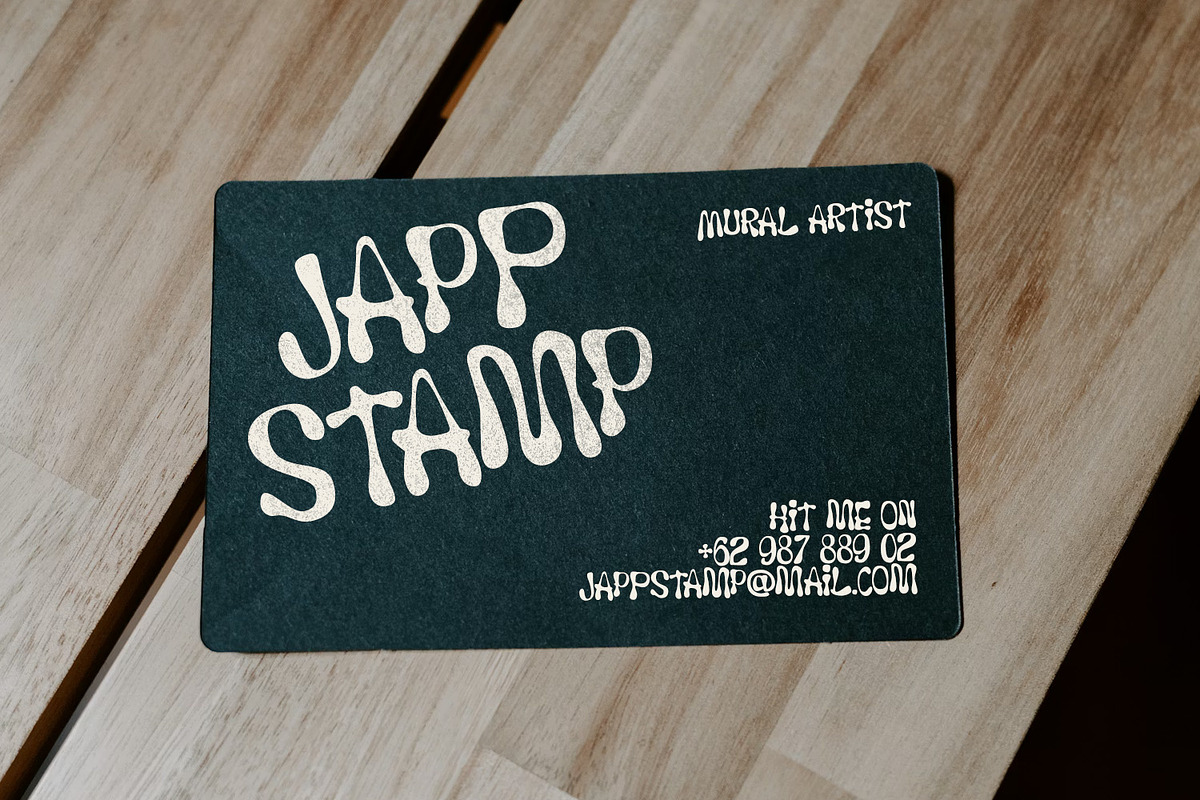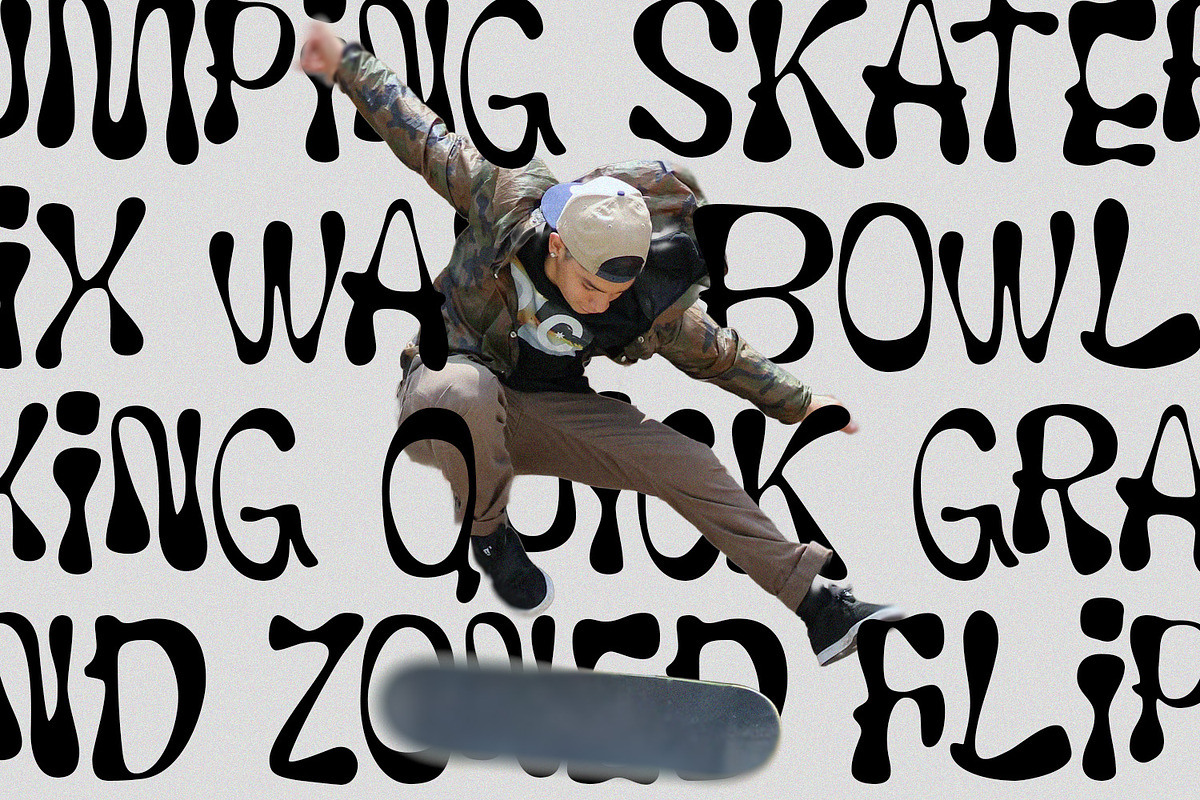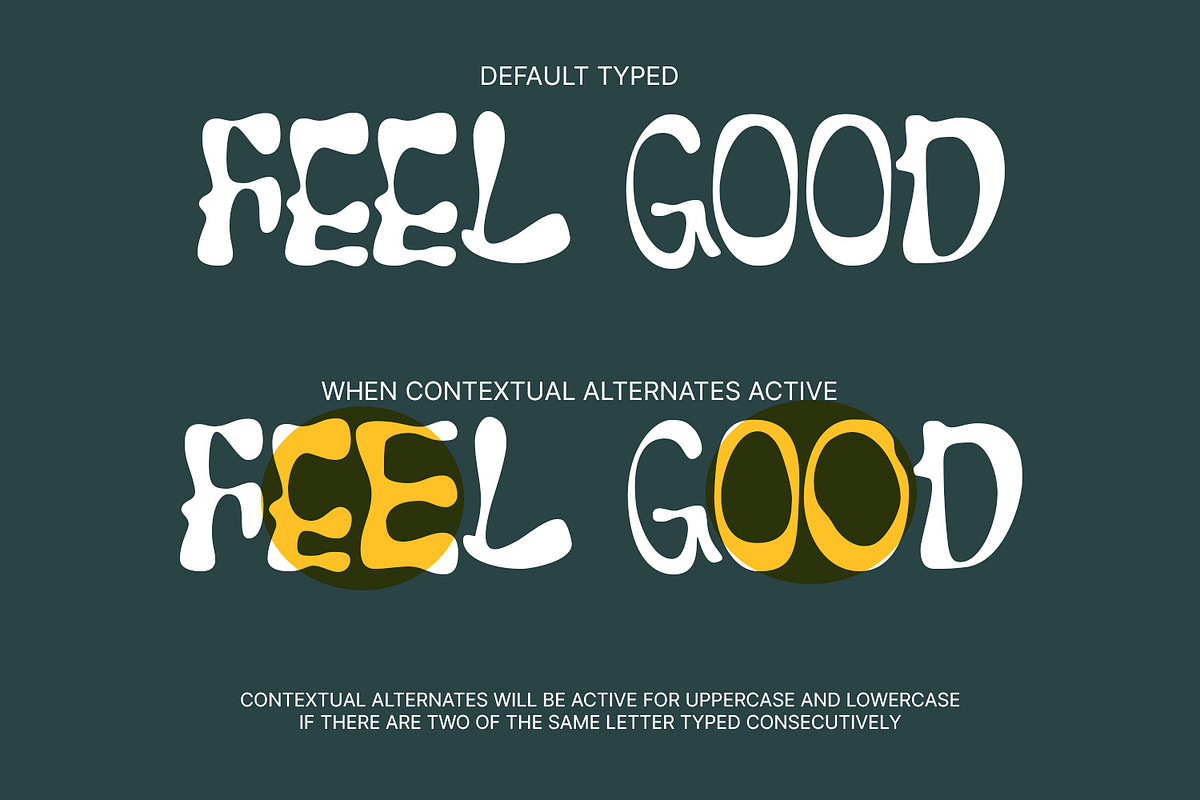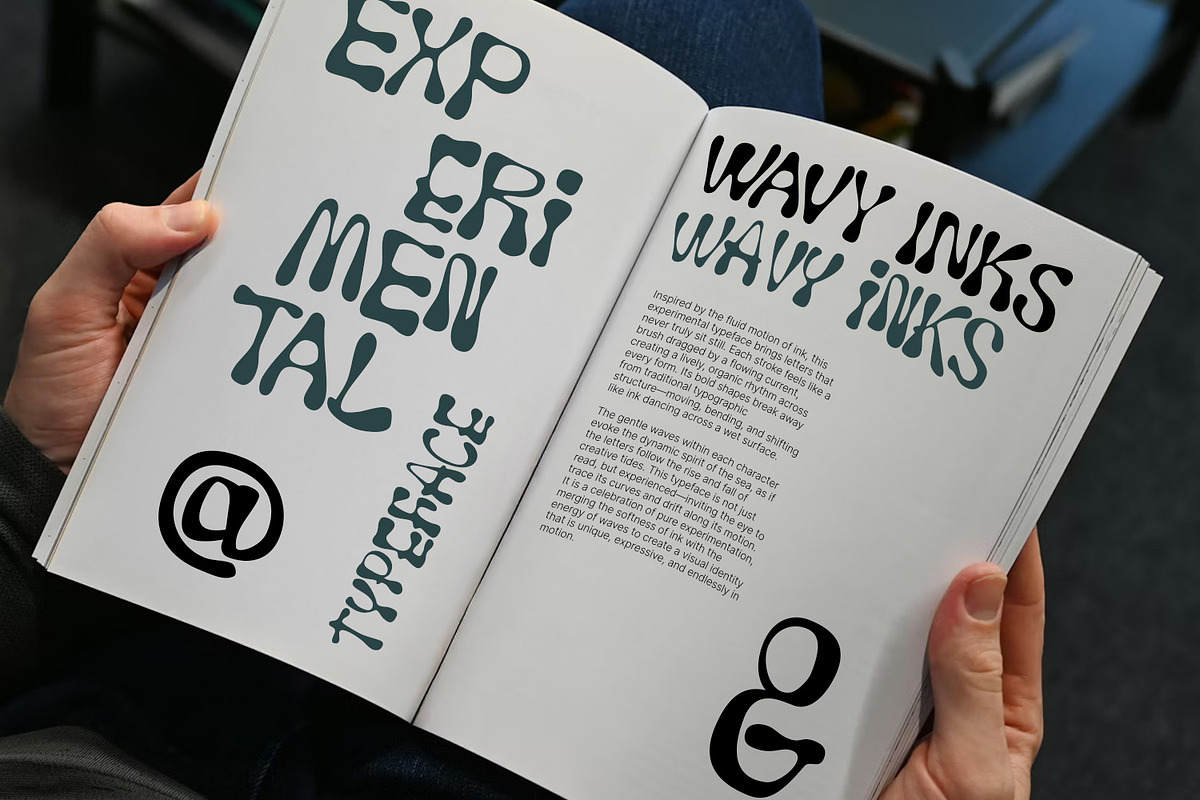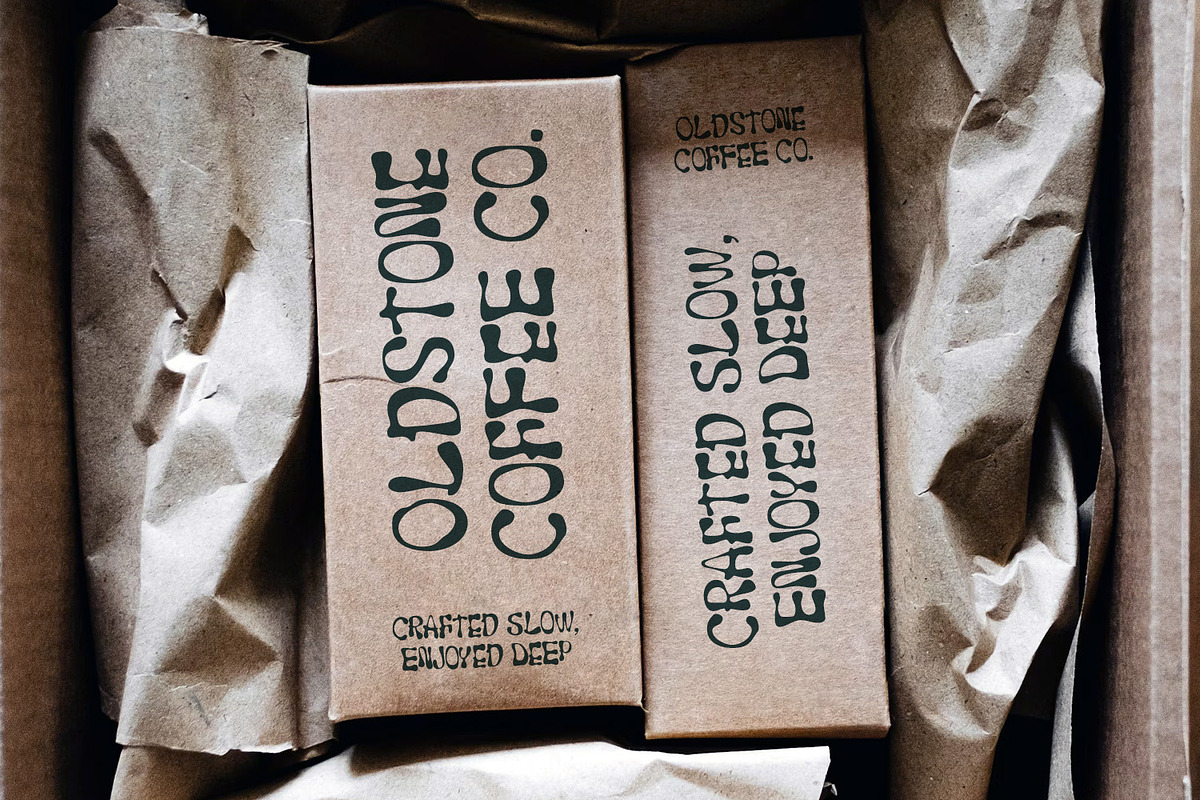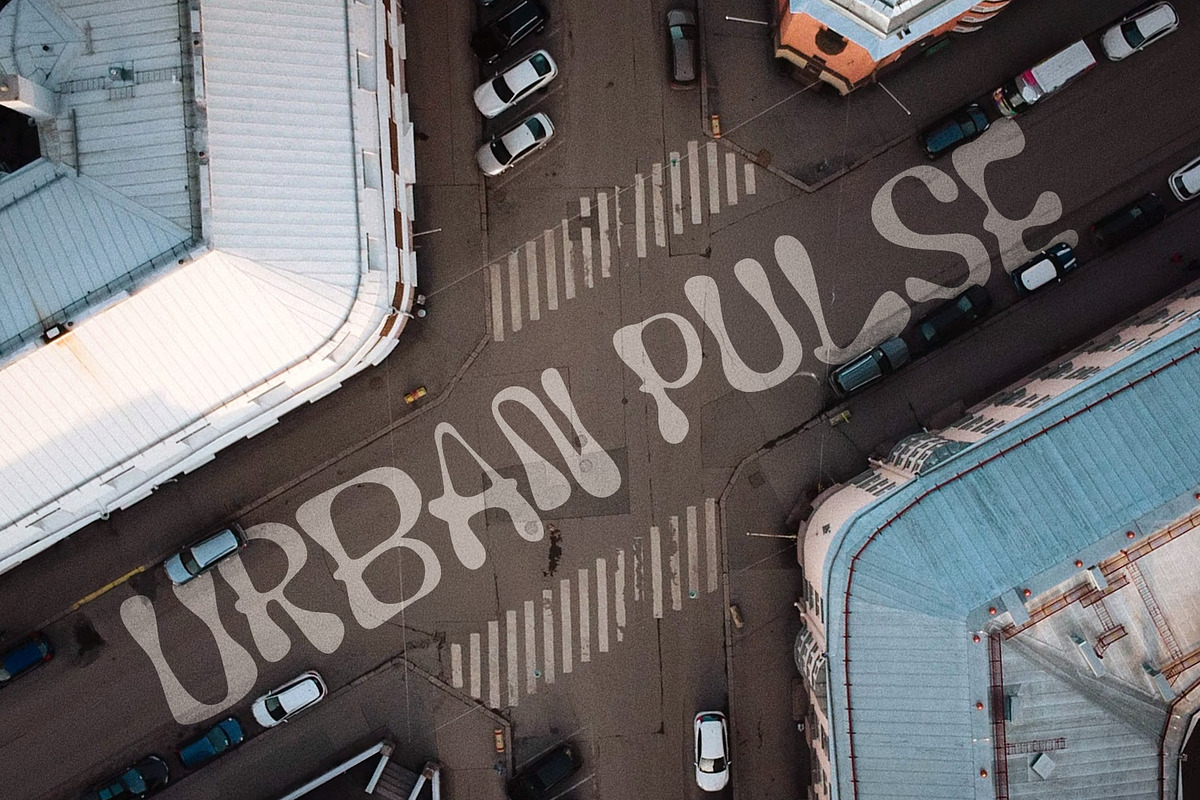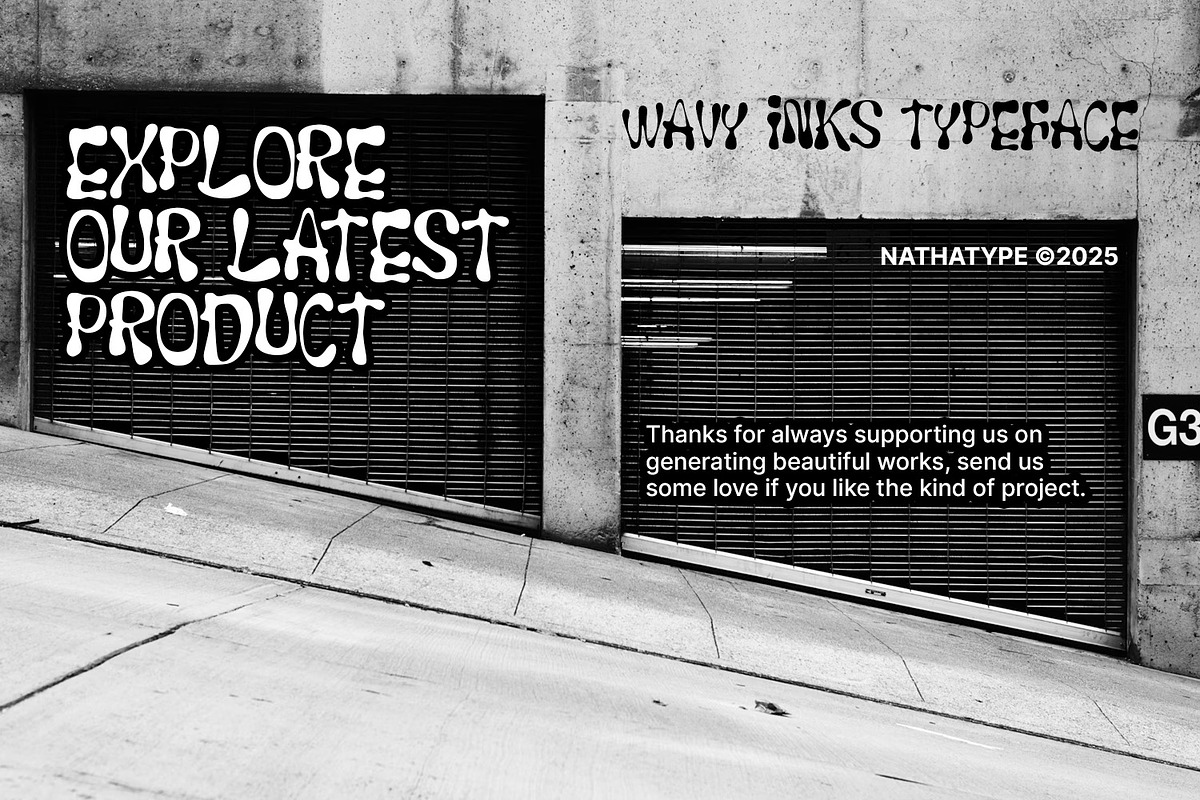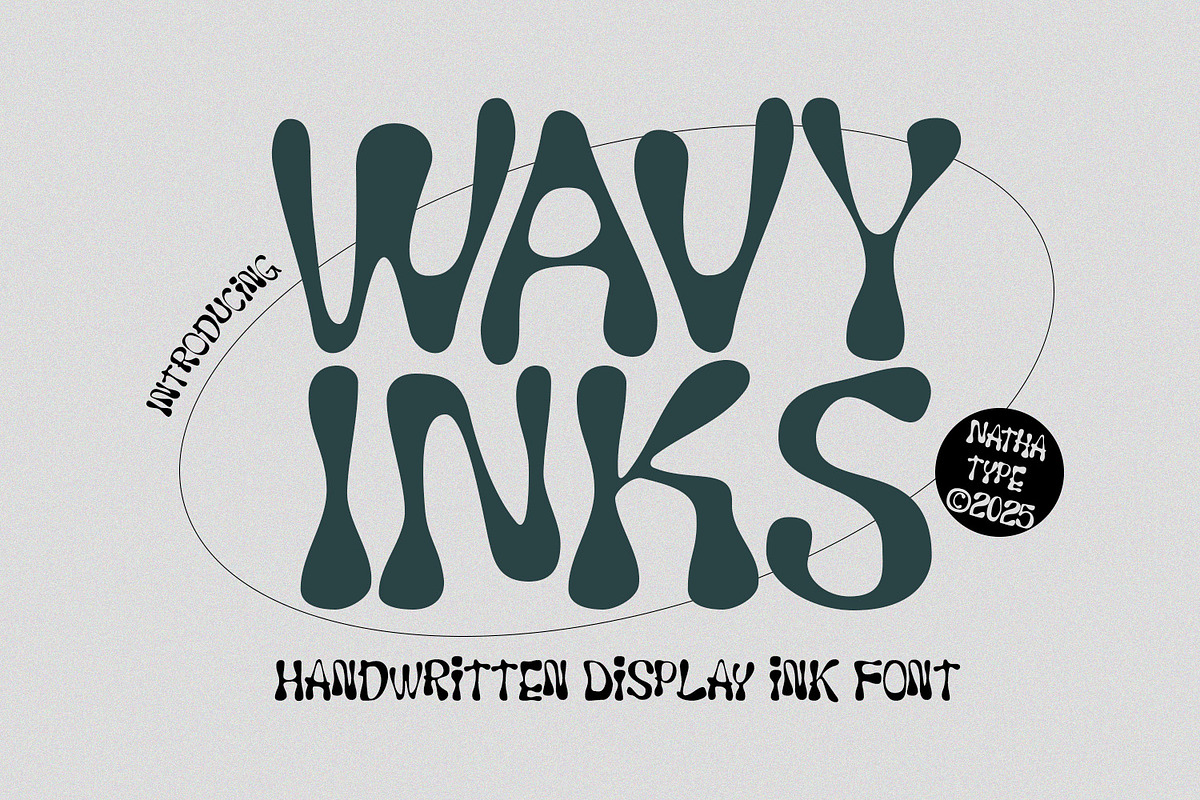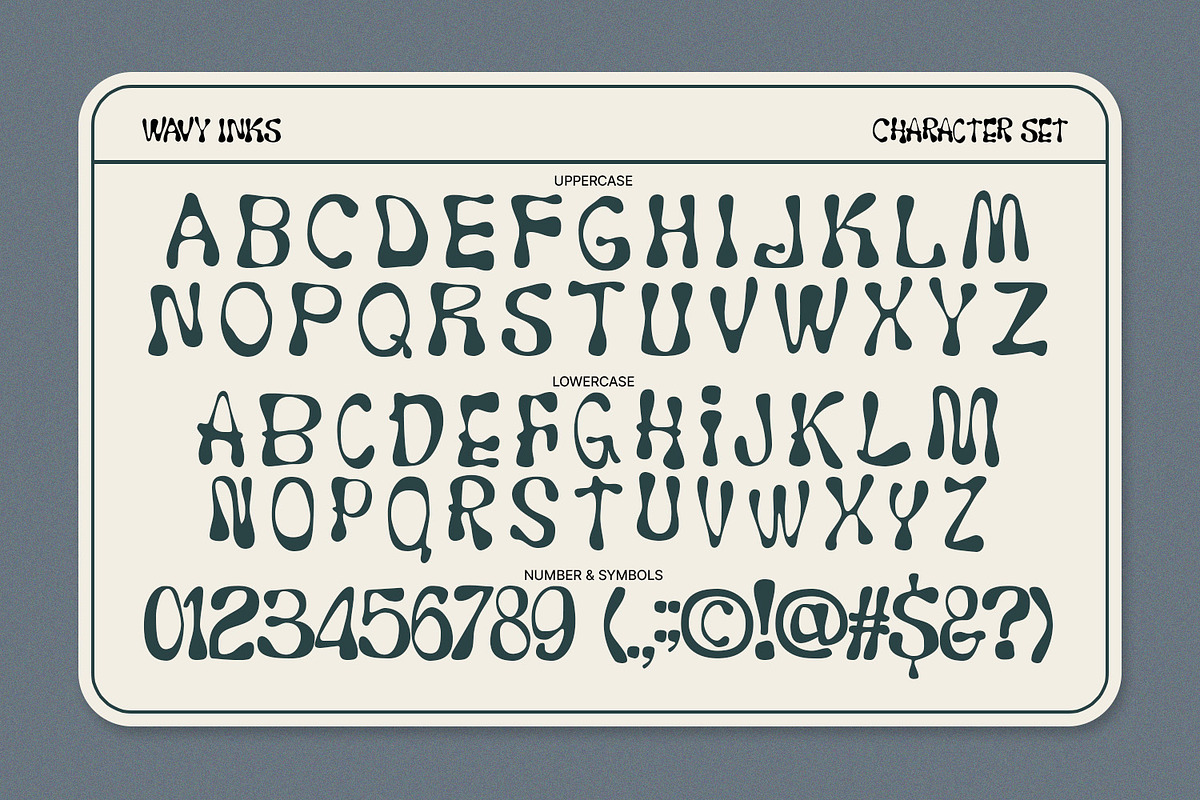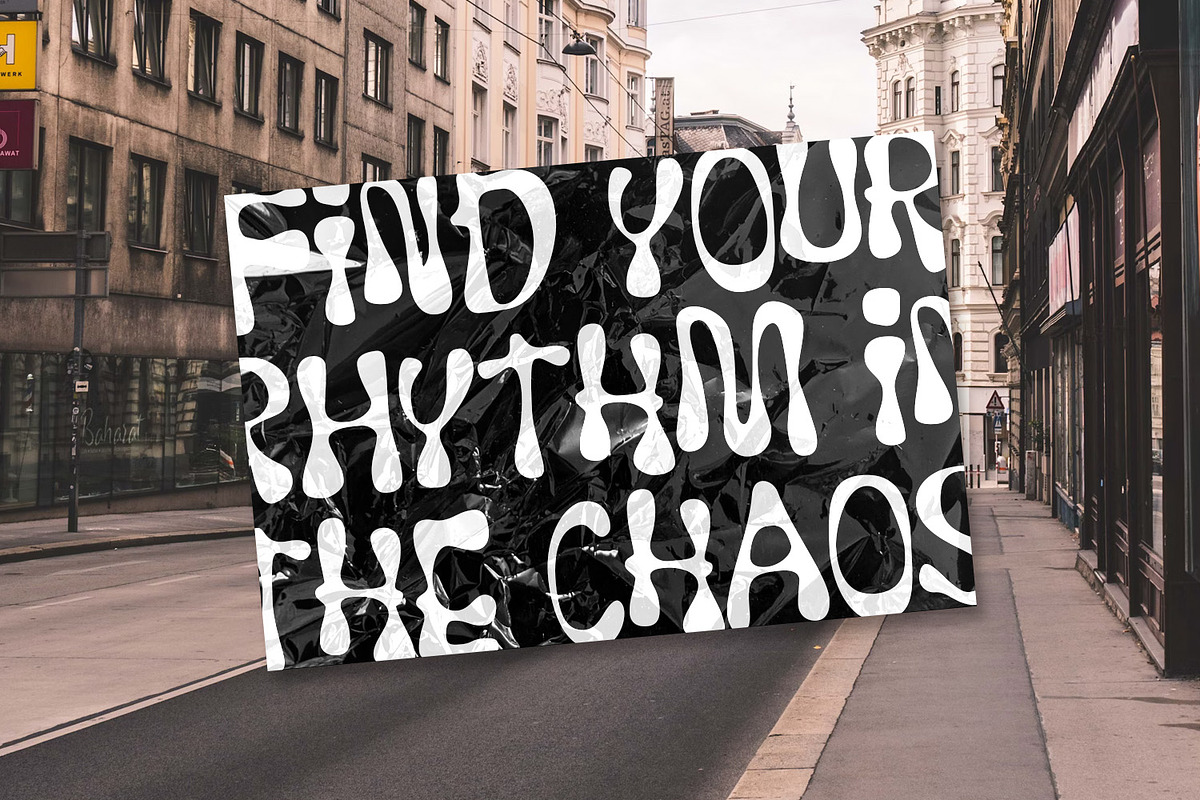
Wavy Inks
Wave Inks is a distinctive handwritten display font designed to bring raw creativity and artistic energy into your typography. Made entirely in uppercase letters, this font is made in irregular letterforms and organic, non-straight outlines that capture the natural movement of hand-drawn ink. The imperfect strokes and uneven contours give Wave Inks a bold, expressive personality that feels authentic, creative, and full of character. In addition, enjoy the features here.
Wavy Inks fits in logos, quotes, branding, posters, and many more designs. Find out more ways to use this font by taking a look at the font preview.